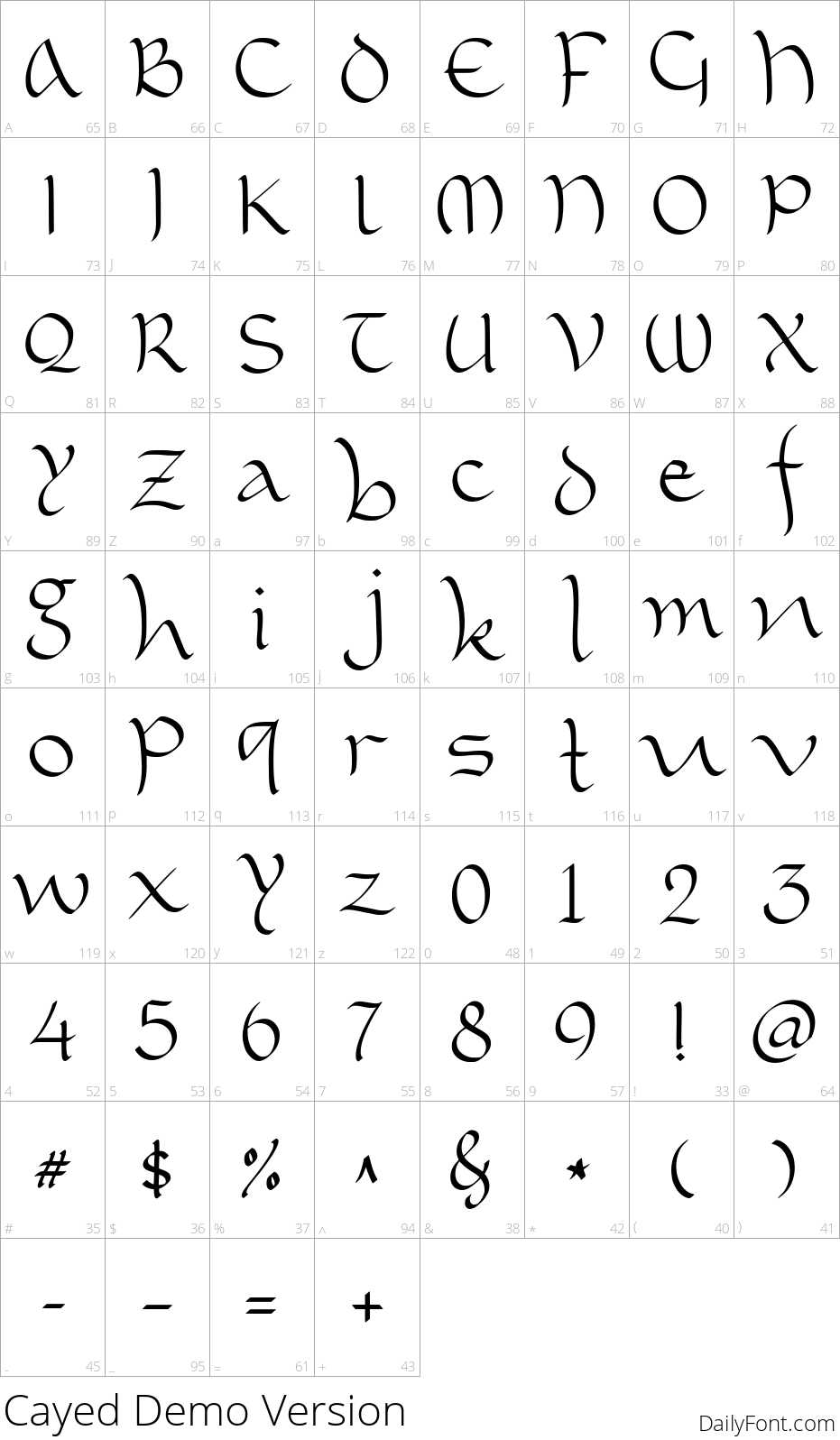
Cayed
Cayed is a captivating display font that beautifully blends retro charm with a modern aesthetic. This stylish typeface is perfect for a wide range of creative projects, whether you're designing eye-catching posters, unique branding materials, or engaging website headers. With its distinctive character, Cayed stands out while remaining versatile enough to complement various themes and topics.
Whether you're a graphic designer, marketing professional, or an entrepreneur, Cayed can enhance your designs and elevate your brand identity. Its retro vibe adds a nostalgic touch, while its clean lines and stylish curves ensure clarity and readability. Don't miss the opportunity to add this incredible asset to your font library, as Cayed will undoubtedly make your creations more impactful and memorable.